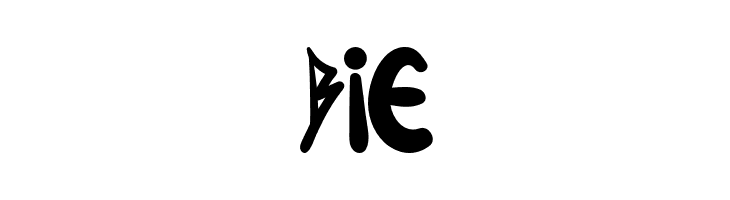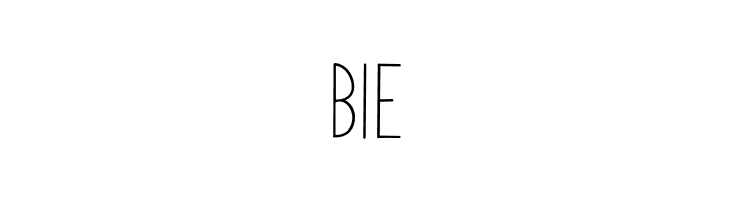
A bold, dynamic font with sharp angles and a retro flair.
A playful, bold, and hand-drawn font with exaggerated, rounded forms.
A tall, narrow font with clean lines and a modern aesthetic.
A clean, modern sans-serif font with balanced letterforms and consistent stroke widths.
A clean, minimalist font with thin lines and consistent spacing for modern elegance.
A bold, modern sans-serif font with clean lines and high legibility.
A modern sans-serif font with clean, uniform strokes and excellent legibility.
A bold, modern sans-serif font with clean lines and excellent readability.
A modern, clean sans-serif typeface with excellent readability and balance.
A clean, modern sans-serif font with a minimalistic and balanced design.